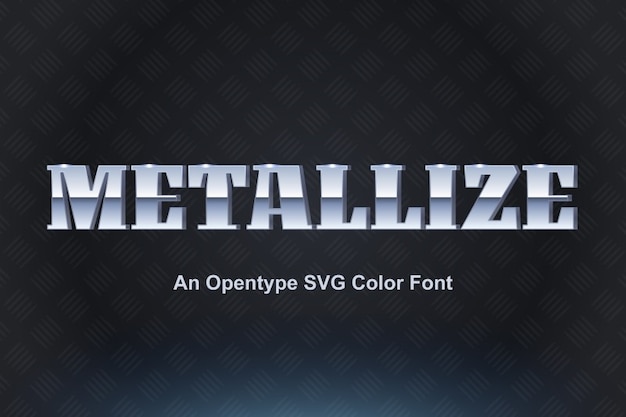
The font that embodies the essence of metal and industrial might. Its characters are as sturdy as steel beams, evoking the robust, blocky nature of the industrial landscape. 'Metallize' adds a touch of industrial charm to your text, crafting a typographic masterpiece that's both visually robust and perfectly suited for designs that demand a bold, metallic edge.